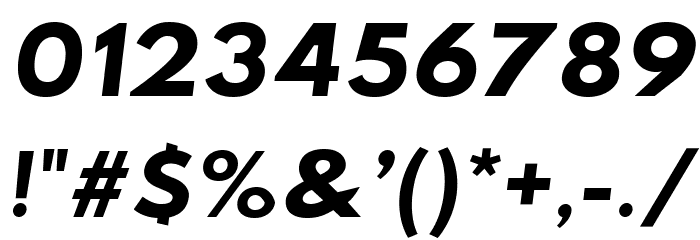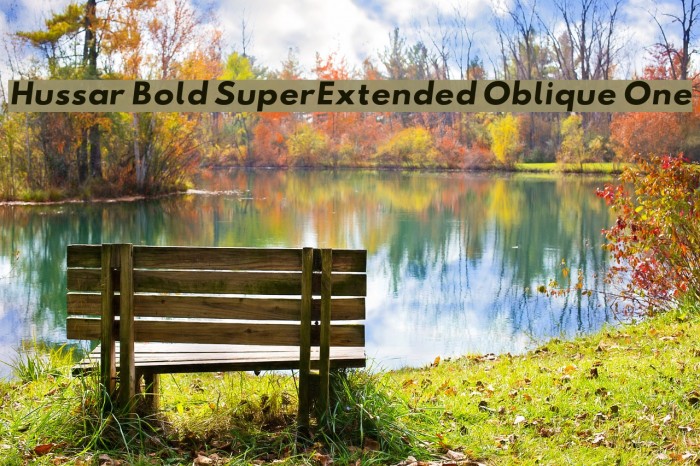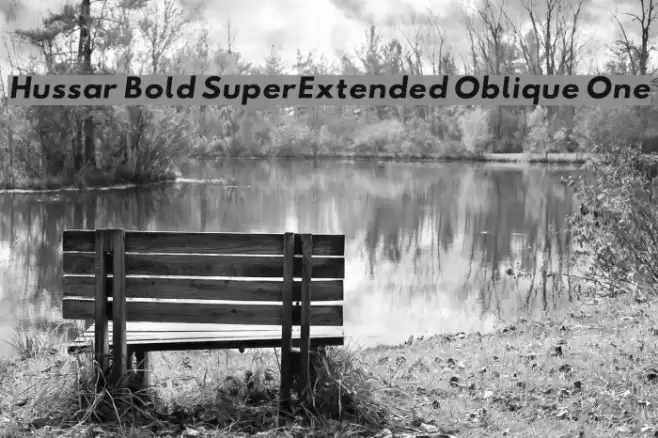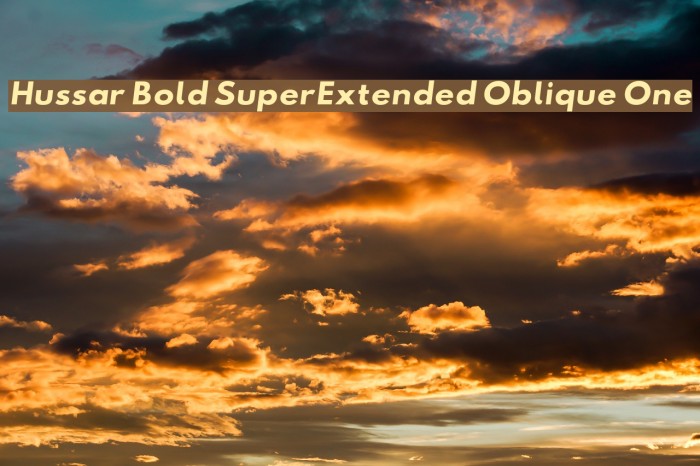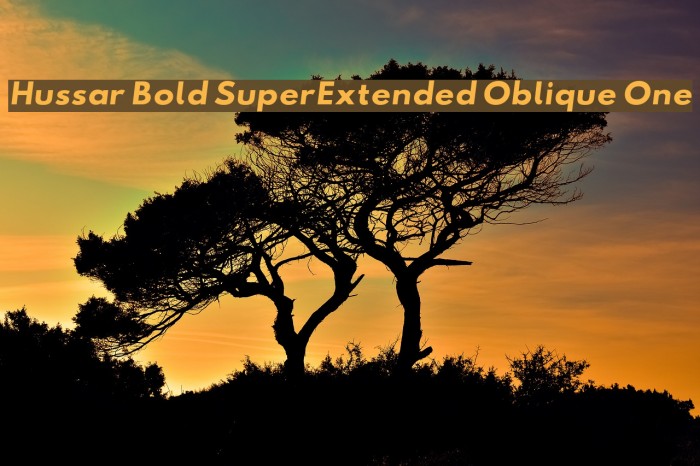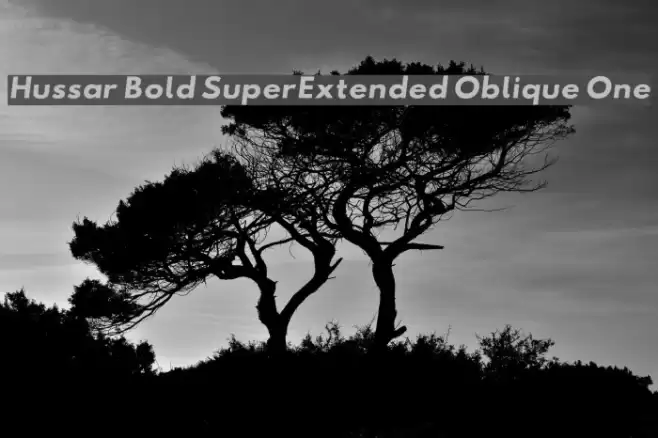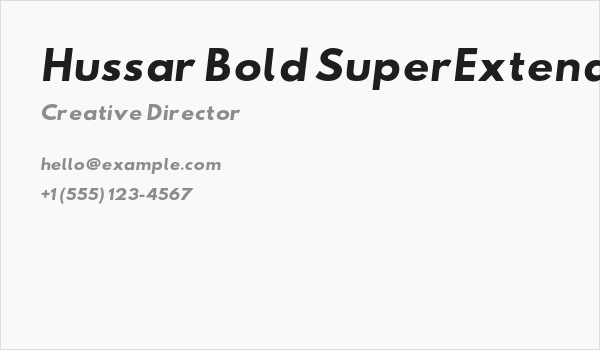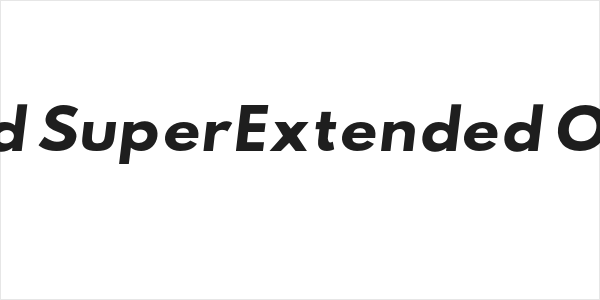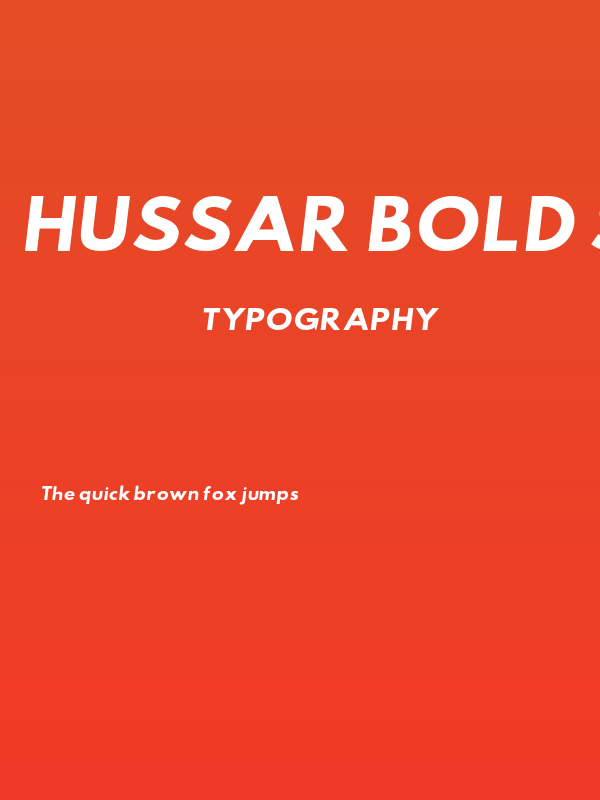
Hussar Bold SuperExtended Oblique One Font
Hussar Bold SuperExtended Oblique One Description
This font features a bold and dynamic style with a pronounced oblique slant, giving it a sense of motion and energy. The characters are super extended, providing a wide and expansive appearance that commands attention. The bold weight ensures strong visibility, making it ideal for impactful headlines and statements. The uppercase and lowercase letters maintain a consistent style, with smooth curves and clean lines that enhance readability. The numerals and special characters are designed to match the overall aesthetic, ensuring a cohesive look across all text elements.
| Proposed Projects | Ideal for headlines, posters, branding, and any design requiring a strong, impactful presence. |